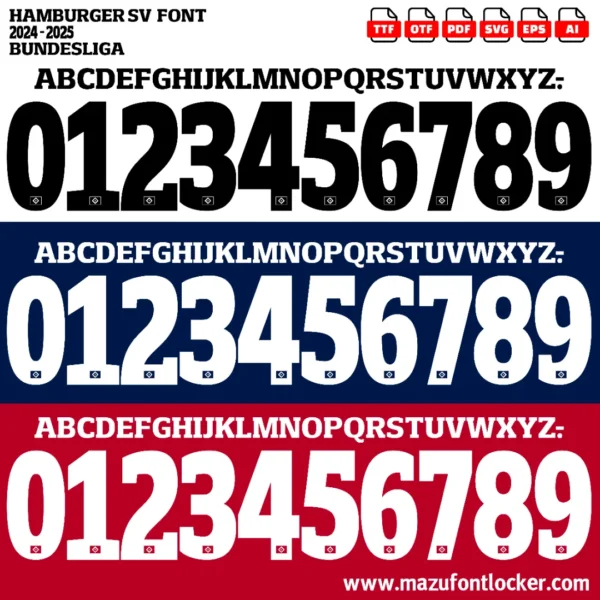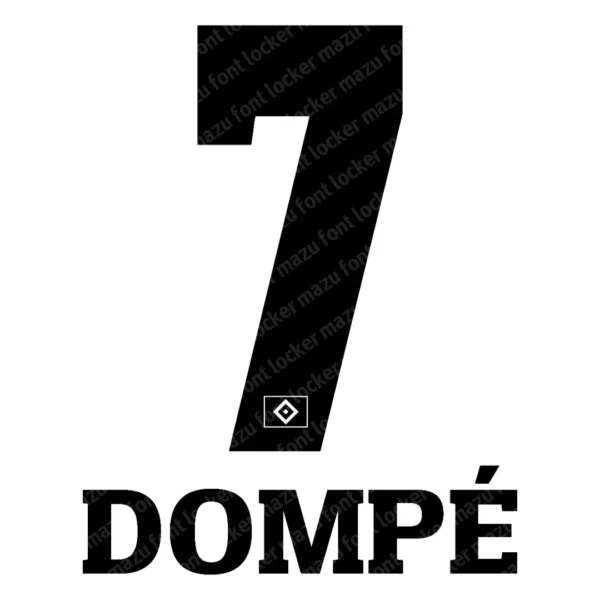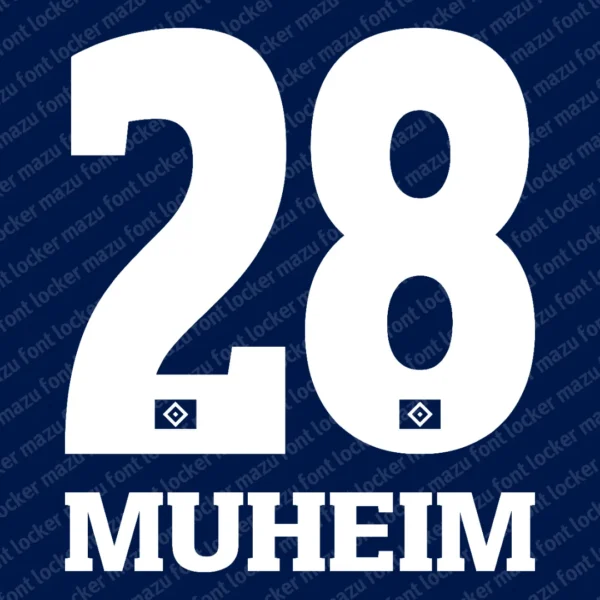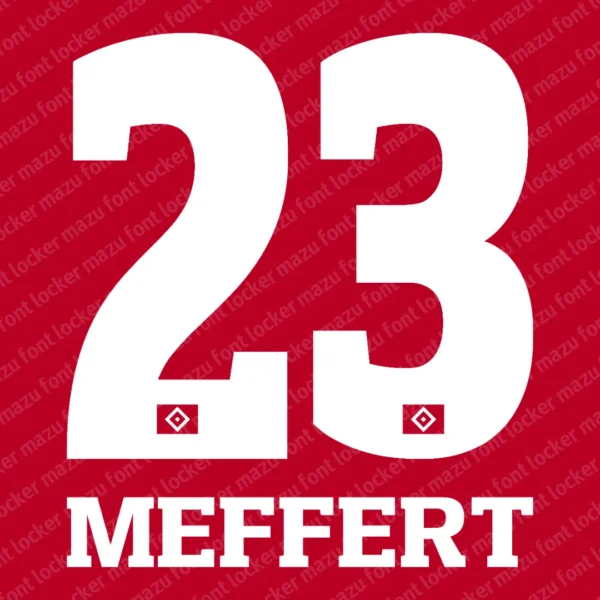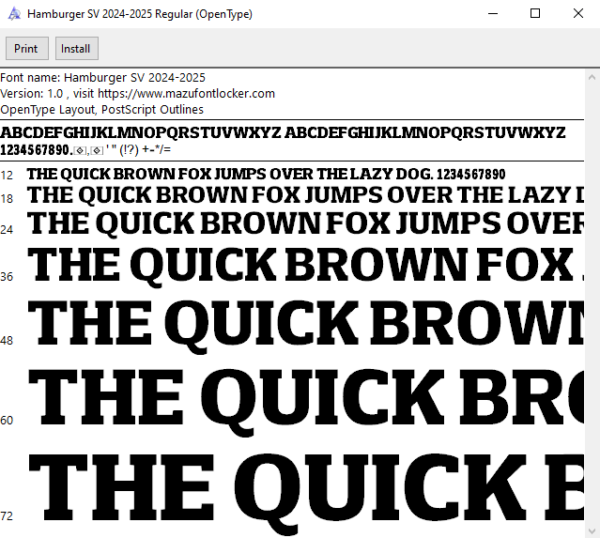
Hamburger SV 2024-2025 Font Vector – Epic Rothosen Legacy Masterpiece
This font captures the commanding, traditional, and precision-crafted lettering that perfectly reflects Hamburger SV’s legendary club identity, proud Hamburg heritage, competitive fighting mentality, and deep-rooted football excellence — delivering unmatched authenticity, premium quality, explosive energy, and classic German football power for professional jersey mockups, dynamic football graphics, premium sports branding, passionate fan creations, and high-end design projects.
Hamburger SV 2024-2025 Font Vector – Classic Diamond Typeface
The Hamburger SV 2024-2025 Font Vector is a premium typeface that accurately recreates the official match lettering worn by Hamburger SV during the 2024-25 season. This high-quality vector font kit captures the bold, traditional, and instantly recognizable typography that perfectly complements the club’s iconic red and white identity.
This font stands out thanks to its precise vector construction and authentic club styling. Every letter and numeral has been meticulously recreated to match the official shirt lettering used throughout the 2024-25 2. Bundesliga campaign. Whether you’re producing professional kit templates or creating eye-catching football content, the Hamburger SV 2024-2025 Font Vector delivers a genuine match-ready appearance.
The lettering featured in the Hamburger SV 2024-2025 Font Vector combines clean geometric lines with powerful modern proportions while honoring the club’s rich heritage. The result is a premium and highly readable typeface that reflects Hamburger SV’s proud tradition and fighting spirit.
- Complete uppercase A–Z alphabet and numbers 0–9 in authentic Hamburger SV 2024-25 style
- Special Hamburger SV badge glyph – Press the “:” (Colon) key to insert the club badge
- Includes authentic badge glyph placement beneath player numbers
Hamburger SV 2024-2025 Season
The 2024-25 season sees Hamburger SV competing with ambition in the 2. Bundesliga while aiming for promotion back to the top flight. Wearing their iconic red and white colors with the famous diamond crest, HSV continues to represent the football passion of Hamburg and northern Germany. The club carries a rich history as a former Bundesliga champion and one of Germany’s most storied institutions.
The Hamburger SV 2024-2025 Font Vector is an independently designed typeface package inspired by the official shirt lettering worn during the 2024-25 season. It has been carefully recreated for football enthusiasts, graphic designers, collectors, and creators producing custom jersey concepts, football artwork, and fan-made projects.